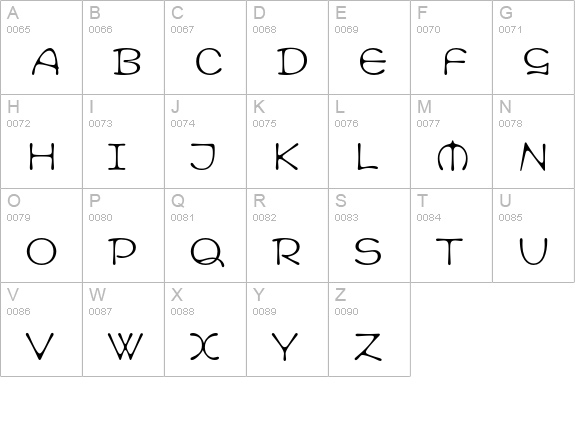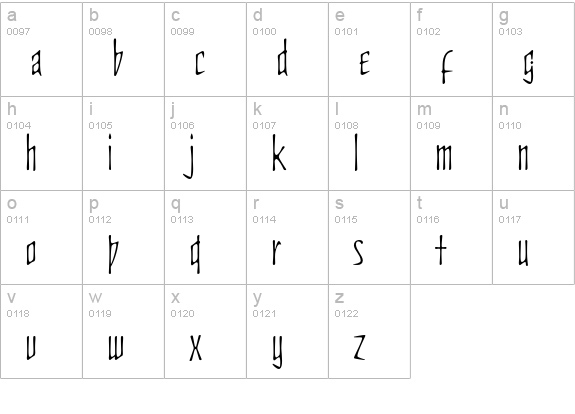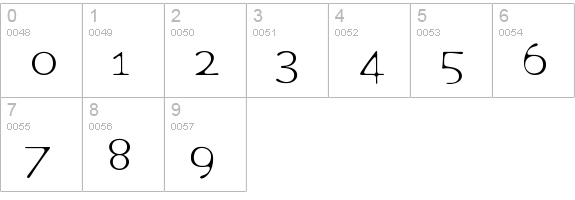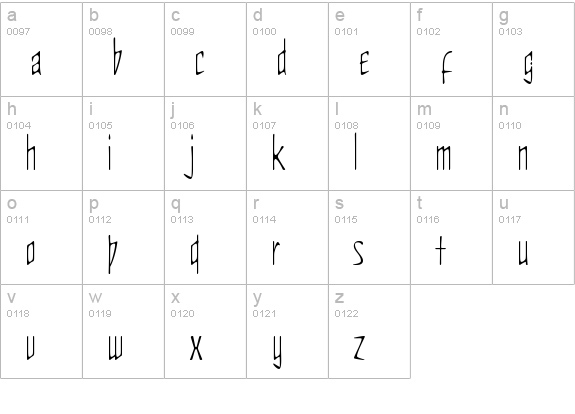
Cult Plain Font Details
Cult Plain font is a versatile and modern typeface that exudes sophistication and elegance. With its clean lines and minimalistic design, this font is perfect for a wide range of design projects, from branding to editorial layouts. The Cult Plain font is free to download at FontsMarket.com, making it easily accessible to designers and creatives looking to add a touch of style to their work. Its timeless appeal and readability make it a must-have in any designer's font library. Elevate your designs with Cult Plain font today and make a lasting impression with its sleek and contemporary aesthetic.